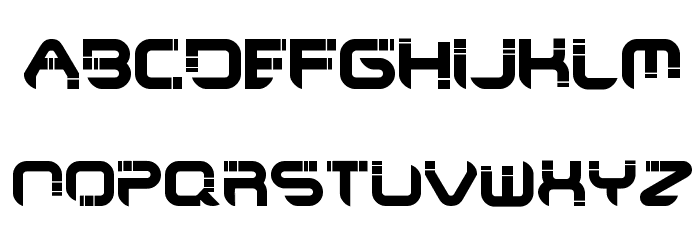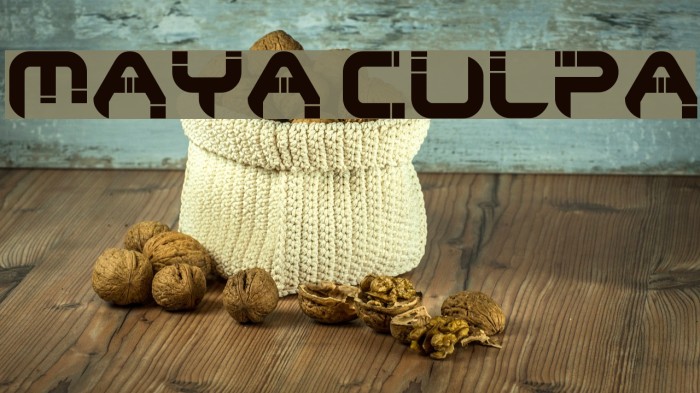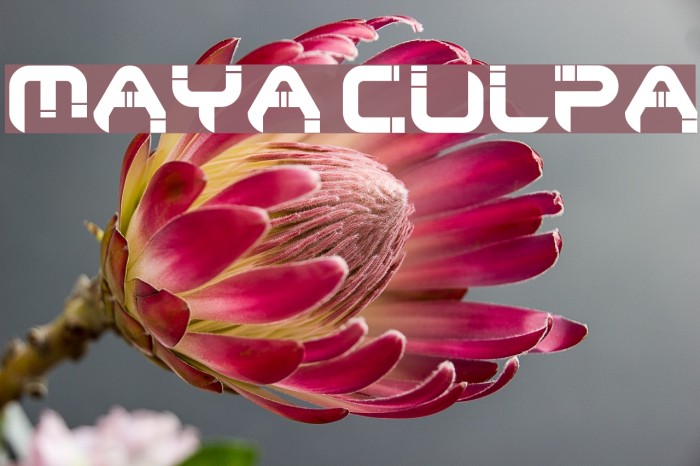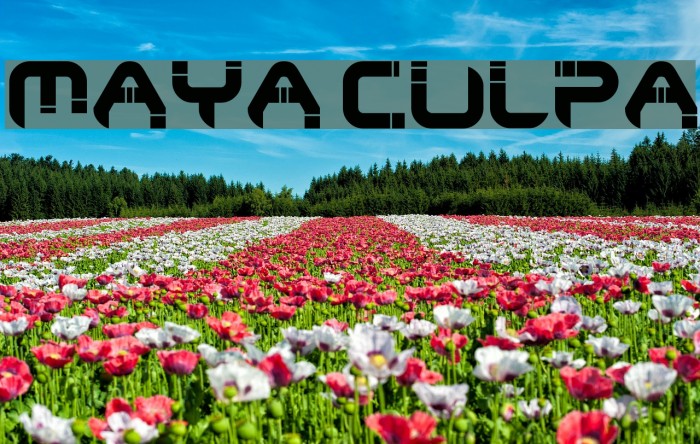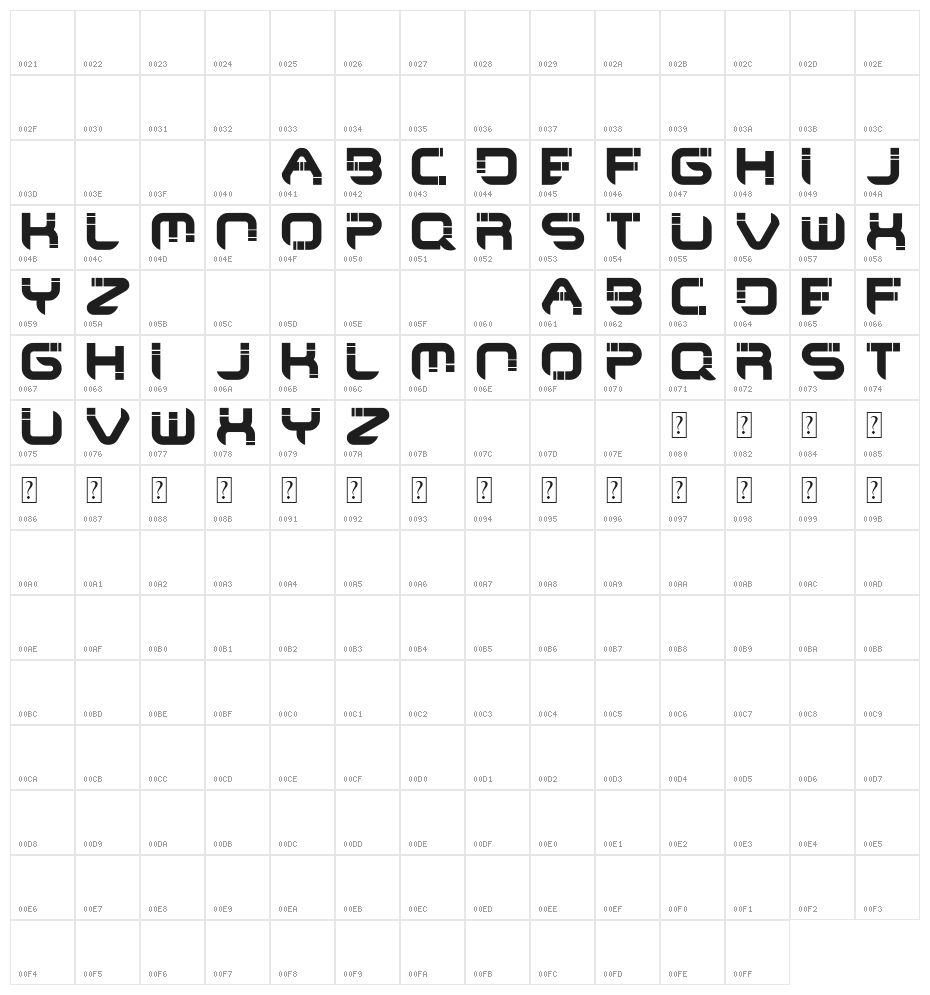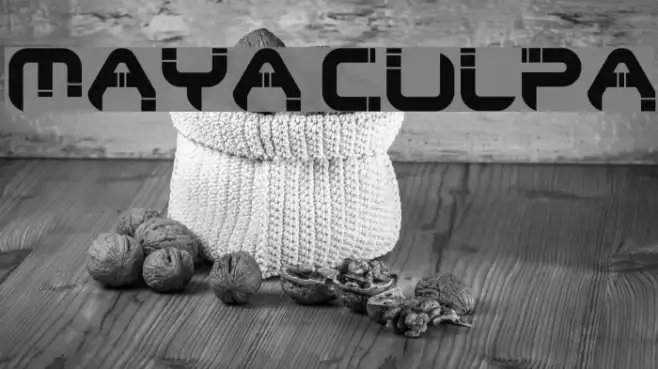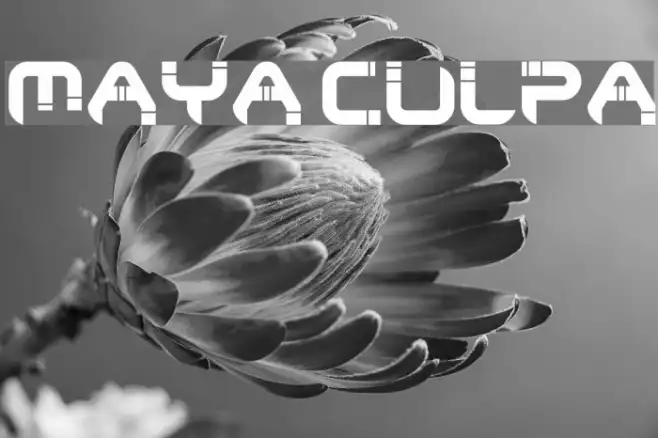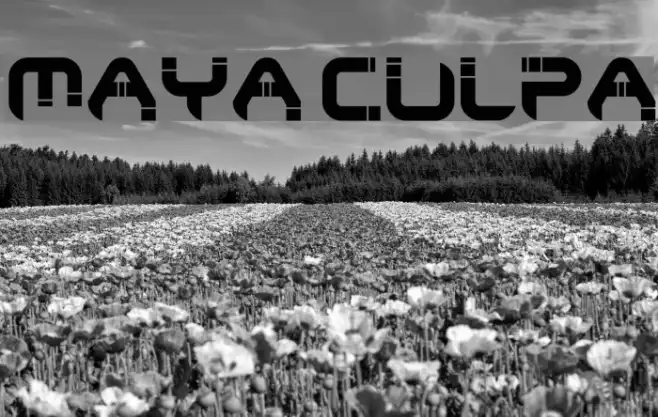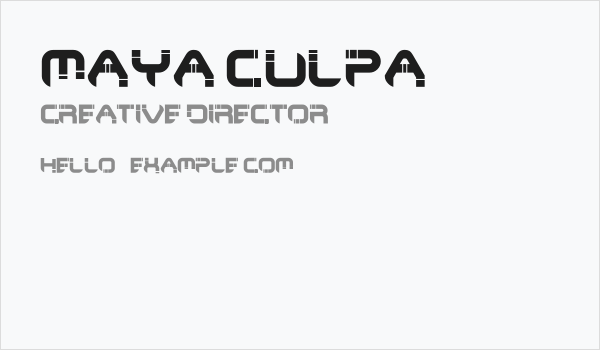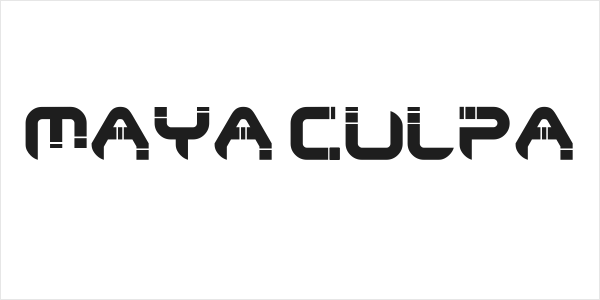
Maya Culpa Font
This font features a futuristic and geometric design, characterized by its bold and blocky letterforms. Each character is constructed with a series of straight lines and sharp angles, giving it a distinctly modern and tech-inspired appearance. The font includes unique cut-out sections within each letter, adding an element of intrigue and complexity. The uppercase letters are uniform in height, while the lowercase letters maintain a consistent style, ensuring readability. The numbers and special characters follow the same design principles, making this font versatile for various applications.
A futuristic, geometric font with bold, blocky letterforms and unique cut-out sections.
- Proposed Projects: Ideal for technology branding, sci-fi movie posters, video game titles, and digital media projects.